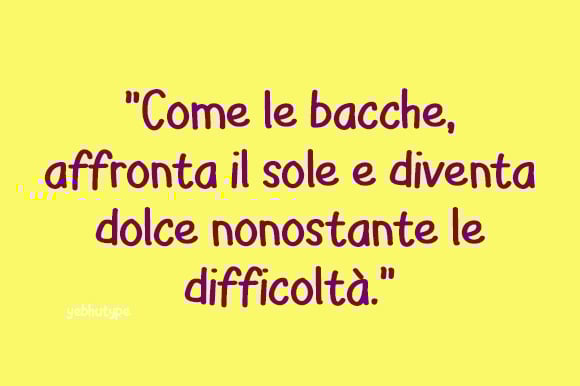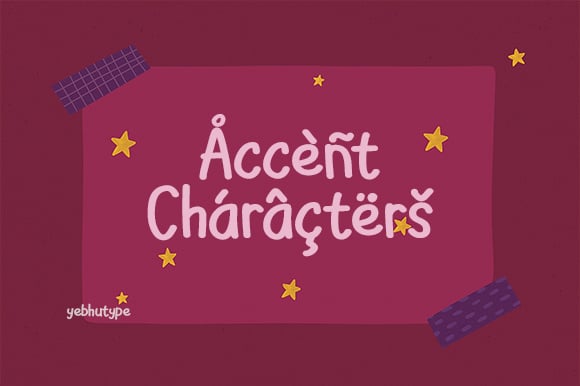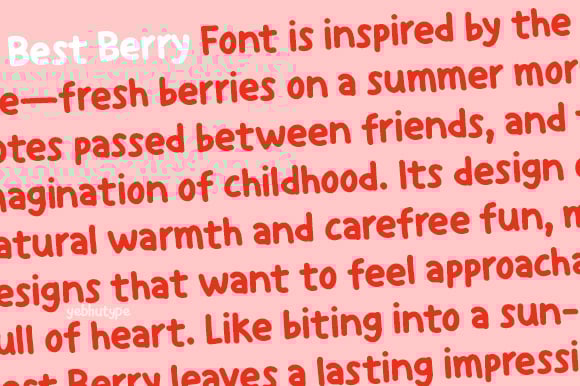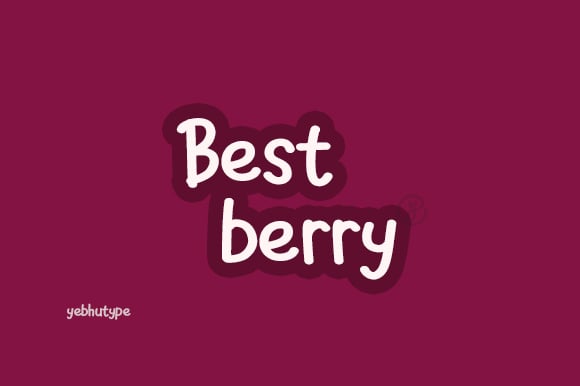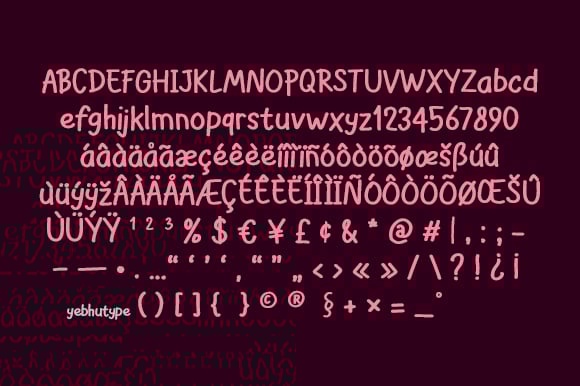
Best Berry Font: The Typeface That Serves Sweetness and Charm in Every Letter
Introducing Best Berry Font , a delightful typeface that captures the essence of joy, playfulness, and warmth. Lovingly crafted to evoke feelings of sweetness and nostalgia, Best Berry is more than just a font—it’s a celebration of all things cheerful, vibrant, and inviting. With its soft curves, rounded edges, and handcrafted details, this typeface is as fresh and juicy as a ripe berry plucked straight from the vine. Whether you’re designing for kids, crafting cozy branding, or adding a playful touch to your creative projects, Best Berry effortlessly brings charm and personality to every word.
The Essence of Best Berry Font
Best Berry Font is inspired by the simple pleasures in life—fresh berries on a summer morning, handwritten notes passed between friends, and the boundless imagination of childhood. Its design embodies a sense of natural warmth and carefree fun, making it perfect for designs that want to feel approachable, friendly, and full of heart. Like biting into a sun-ripened strawberry, Best Berry leaves a lasting impression of sweetness and delight.
Key Features
Soft & Juicy Design
With its plush, rounded letterforms, Best Berry feels like a warm hug for your text. Each character is designed to be smooth, gentle, and inviting, creating an aesthetic that’s both modern and timeless.
Playful Energy
Every curve and stroke radiates positivity and fun. Best Berry’s bouncy proportions and lively details make it ideal for projects that aim to spark joy and connection.
Versatile Use Cases
From children’s books to food packaging, greeting cards to social media graphics, Best Berry adapts seamlessly to any project that calls for warmth and whimsy.
Handcrafted Details
Each glyph is meticulously crafted with slight irregularities to give it an organic, human touch. These subtle imperfections ensure your text feels alive and brimming with personality.
Modern Yet Nostalgic
While Best Berry has a contemporary edge, it also carries whispers of nostalgia. It’s reminiscent of chalkboard doodles, storybook illustrations, and lazy afternoons spent daydreaming.
Mood & Personality
Best Berry Font is the typographic embodiment of happiness. Imagine strolling through a farmers’ market filled with baskets of ripe berries, their colors bursting with life—or flipping through the pages of a beloved picture book where every illustration feels magical. That’s the energy Best Berry brings to your designs. It’s playful without being overwhelming, sweet without being cloying, and modern without losing its nostalgic charm.
Ideal Use Cases
Children’s Books & Storytelling
Bring stories to life with Best Berry’s cheerful and inviting style. Perfect for titles, chapter headers, or dialogue bubbles, it creates an immersive reading experience that captivates young readers (and the young at heart).
Food Packaging & Branding
Add a dash of sweetness to your brand with Best Berry. From artisanal jam labels to bakery logos, this font makes everything look deliciously irresistible.
Greeting Cards & Invitations
Celebrate birthdays, baby showers, holidays, or everyday moments with Best Berry’s playful flair. It adds a personal, heartfelt touch to every occasion.
Social Media Graphics
Elevate your digital content with Best Berry’s eye-catching charm. Whether it’s Instagram posts, TikTok overlays, or Pinterest pins, this font keeps your audience engaged and smiling.
Personal Projects
Transform your journals, scrapbooks, or DIY crafts into treasured keepsakes with Best Berry. Its friendly vibe turns even the simplest creations into something special.
Why Choose Best Berry Font?
In a world dominated by sleek lines and minimalist aesthetics, Best Berry stands out as a breath of fresh air. It reminds us of the beauty of simplicity, the power of playfulness, and the importance of connection. Whether you’re creating something new or reviving cherished memories, Best Berry helps you craft designs that resonate deeply with your audience. It’s not just a font—it’s a way to infuse your work with sweetness and soul.
Let Your Designs Taste Sweet and Feel Alive
With Best Berry Font , every word becomes a treat, every sentence a melody, and every design a moment of pure joy. Let its playful curves and charming personality inspire you to create work that truly connects with hearts.
P.S.: Sweetness never looked so good. With Best Berry Font, every project becomes a love letter to creativity—and a bridge to smiles.